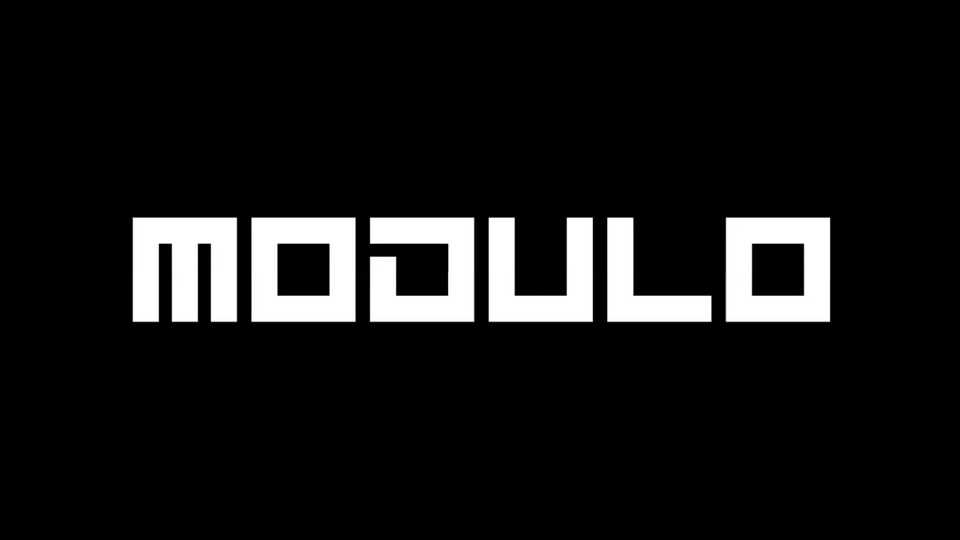
Download Modulo typeface, a layered algorithmic grid-based font family with 168 styles. Each letterform of Modulo is based on a 128-grid square. Default tracking and baseline/line heights are set to follow a perfect square grid.
Designer: Shinji Pons